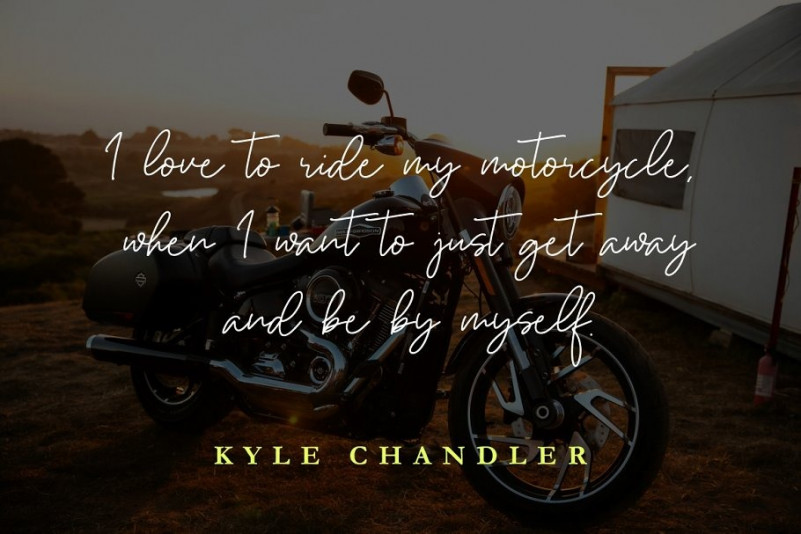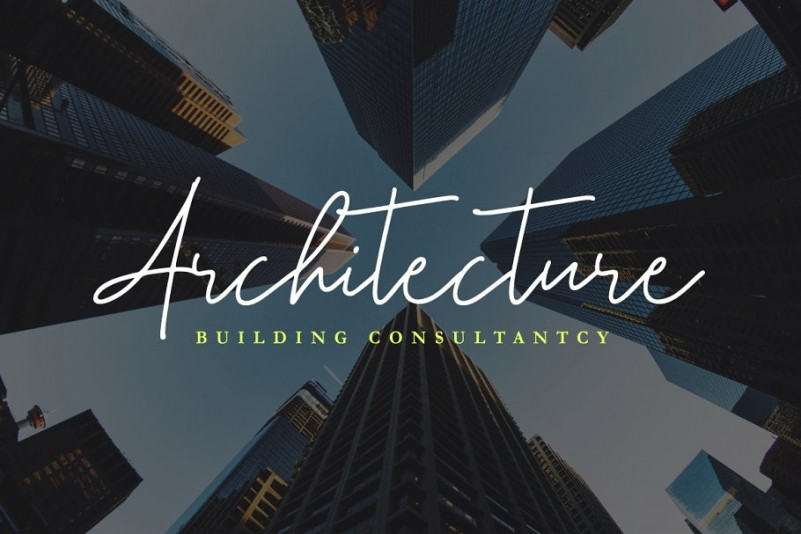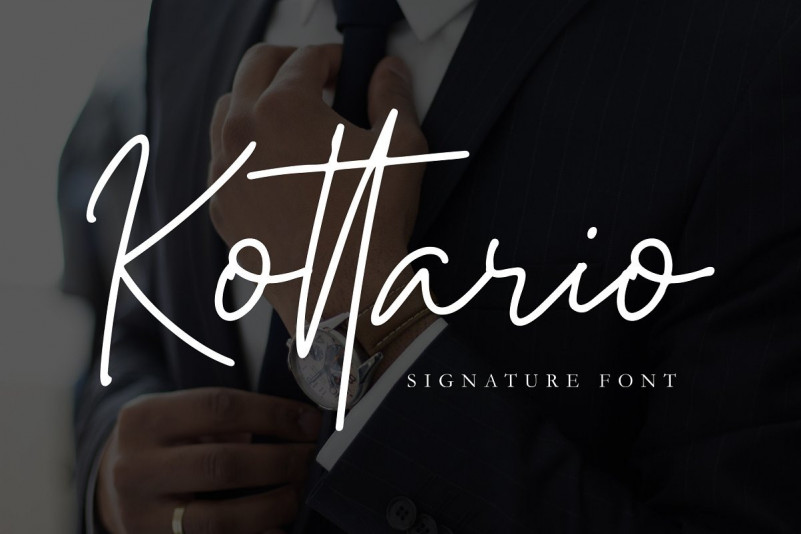
Kottario Handwritten Font
Kottario Handwritten Font is handcrafted signature we designed to have modern and classy looks for business person and entrepreneur. We also make it more masculine to be applicable on things such as motorbike, men fashion, etc